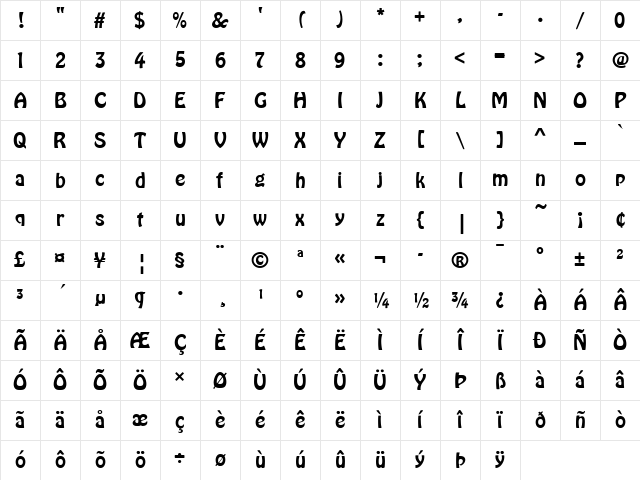
Hobo D Regular Free Font
Hobo D Regular
Foundry: by URW
Design Context for Hobo D
Hobo D is a composed and adaptable typeface that performs quietly and consistently across a wide range of design contexts.